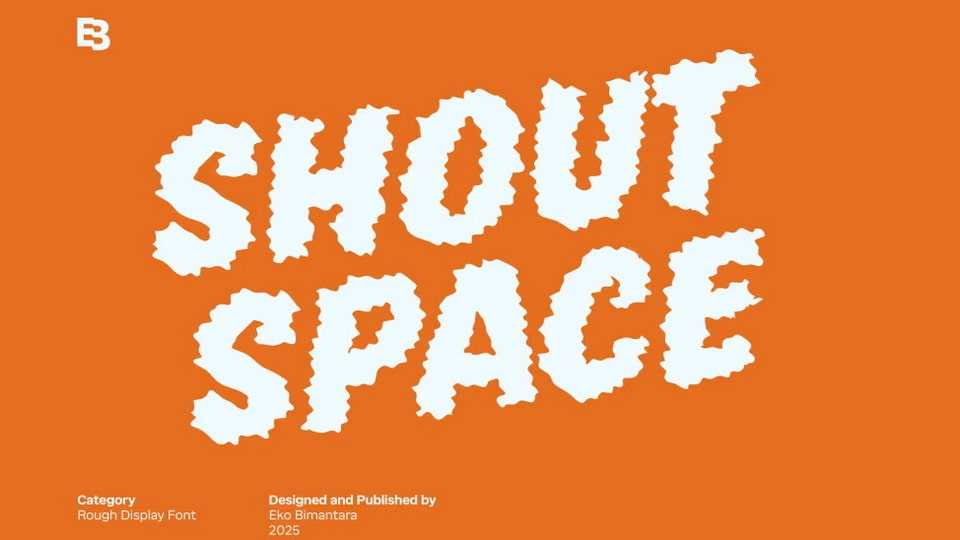
Download Shout Space font, a rough and bold display typeface created to grab attention and deliver maximum impact with explosive, jagged contours and high-energy forms.